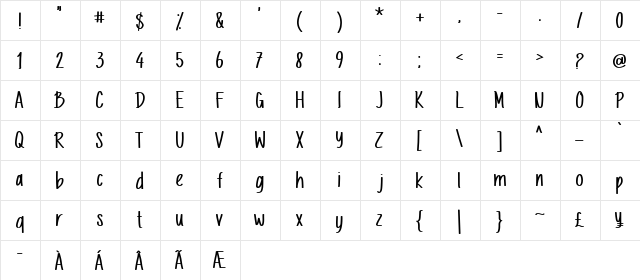
Letternesia Regular
| Designer | Ekosamp 2019 |
Design Context for Letternesia Typeface
Letternesia is a composed and adaptable typeface that performs quietly and consistently across a wide range of design contexts.